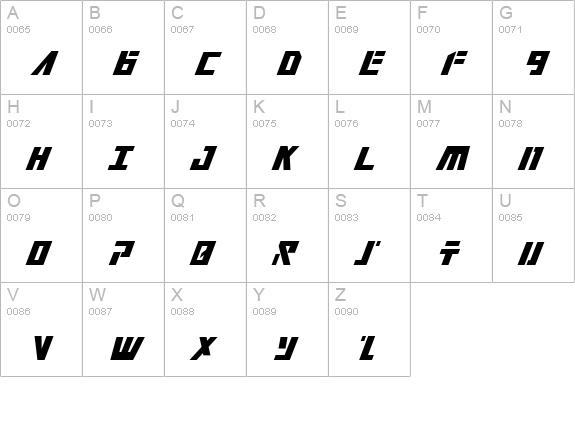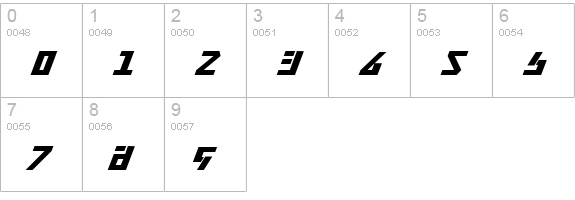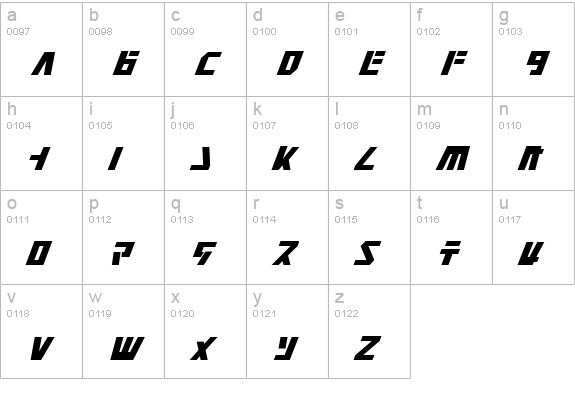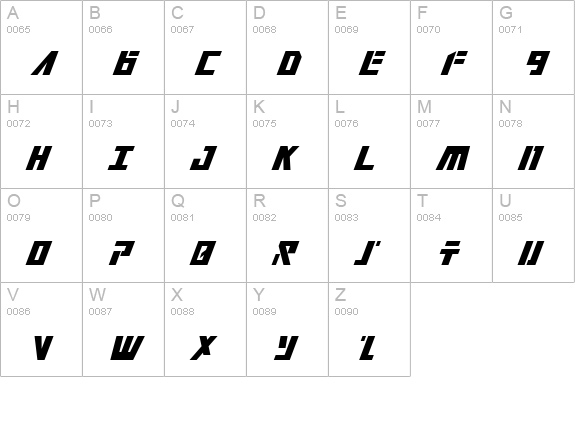
Falconhead Condensed Italic is a distinctive, condensed-width, italic variant in the Falconhead typeface family \xE2\x80\x94 well suited to design and typography projects.
Falconhead Condensed Italic font exudes elegance and sophistication with its sleek and modern design. The italicized form adds a touch of flair and style to any project, making it perfect for titles, headers, and other eye-catching text. The condensed style allows for a more compact and streamlined look, ideal for saving space while maintaining readability. What's even better is that Falconhead Condensed Italic font is available for free download at FontsMarket.com. This means you can easily access this stunning typeface to enhance your designs without any cost. Whether you're working on a branding project, website design, or any other creative endeavor, Falconhead Condensed Italic font is sure to elevate your work with its professional and contemporary aesthetic. Download it today and add a touch of sophistication to your projects!